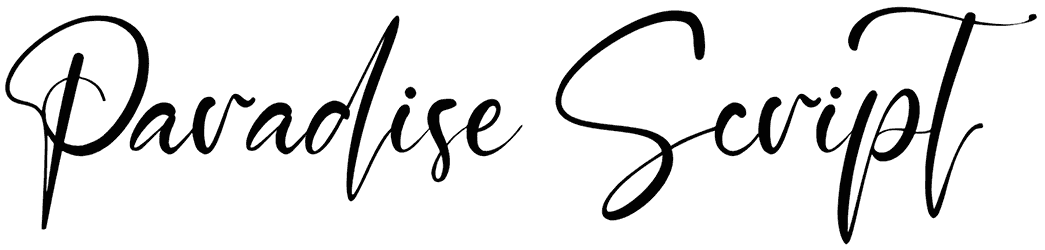
Paradise Script Font
Paradise Script is a stunning calligraphy font that is perfect for adding a personal touch to any design project. With its fluid, handwritten strokes and naturally unreadable look, this font is sure to make an impact.